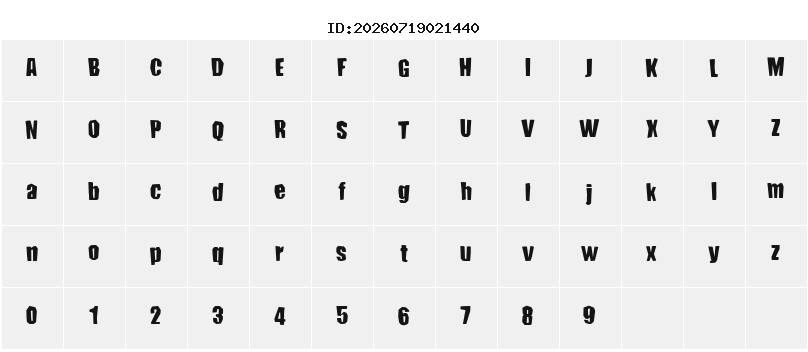
• Font Name: Conundrum
About Conundrum.ttf
Conundrum.ttf is a modern, elegant sans-serif font designed for ultimate readability and visual harmony. Perfect for branding, headlines, web design, and print materials.